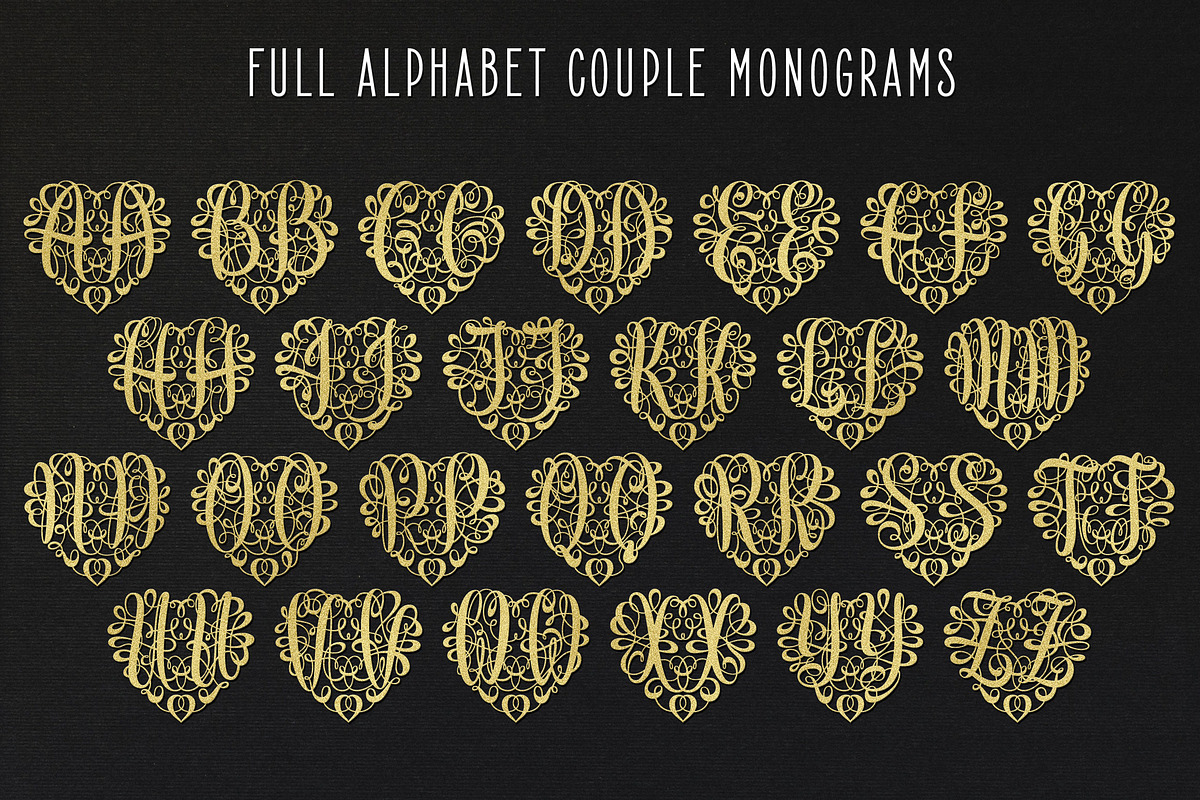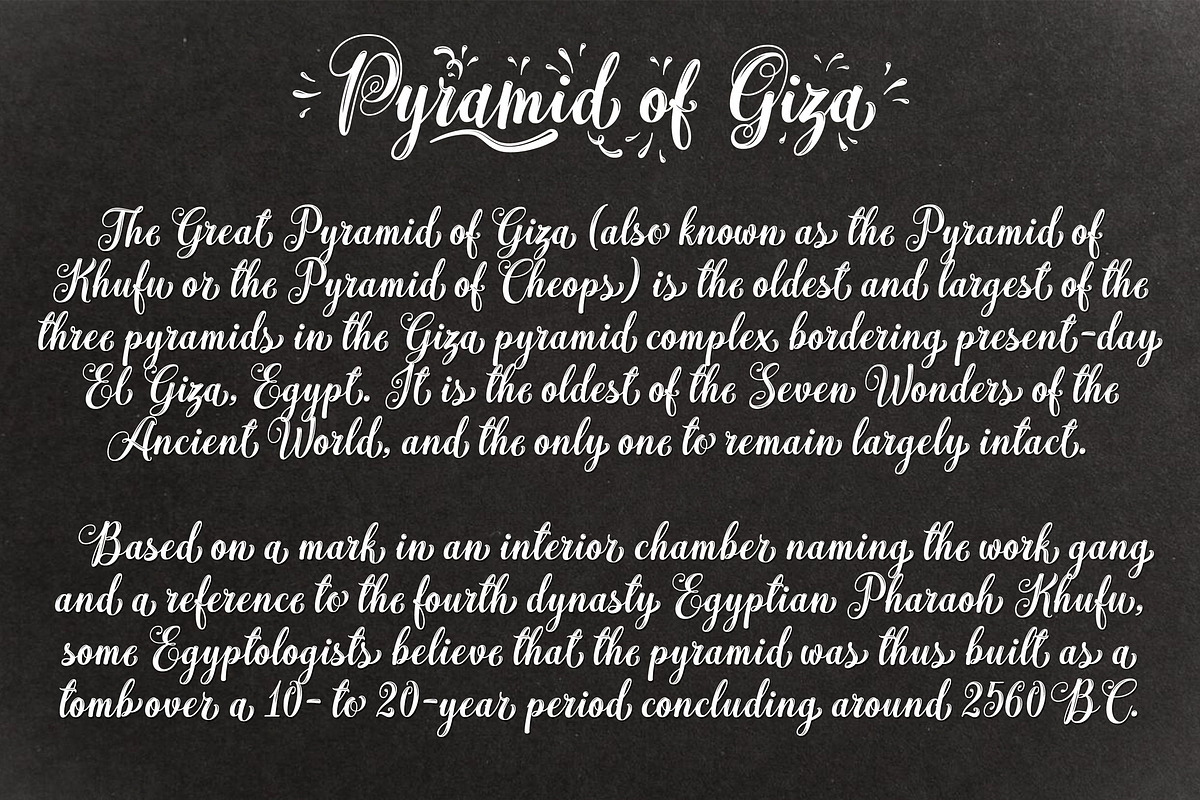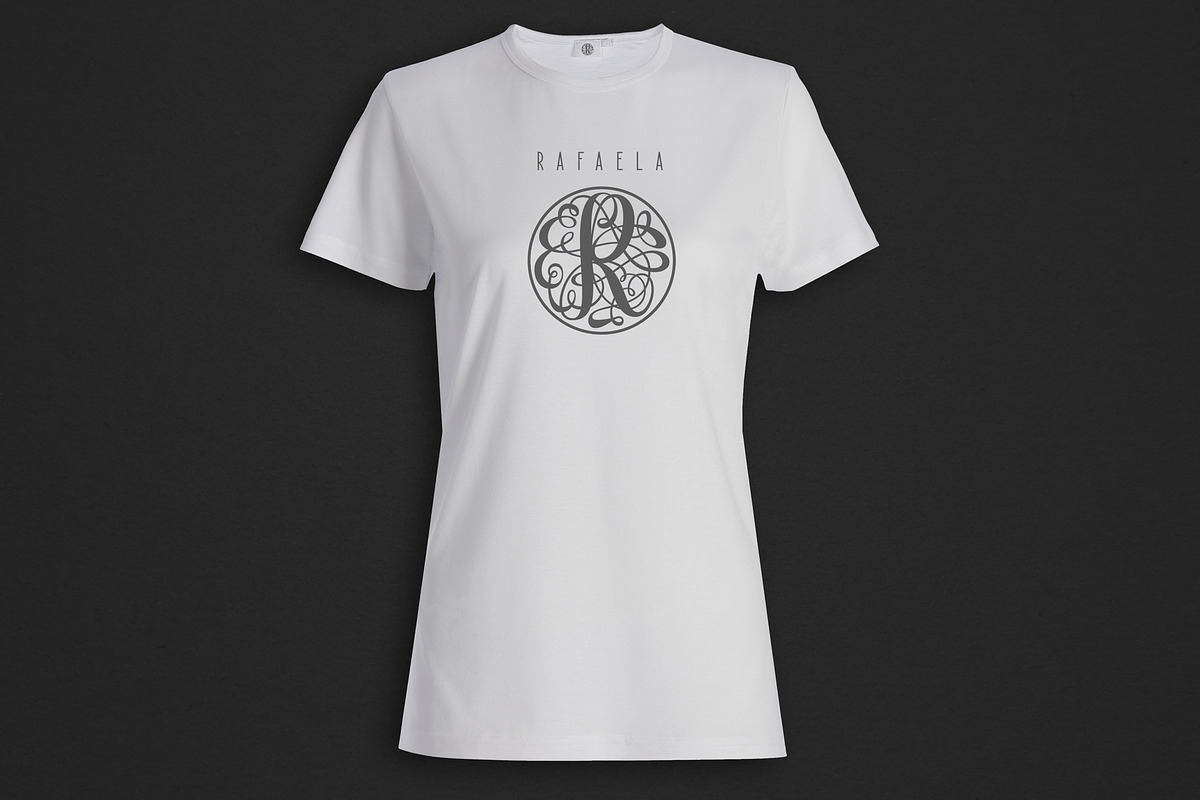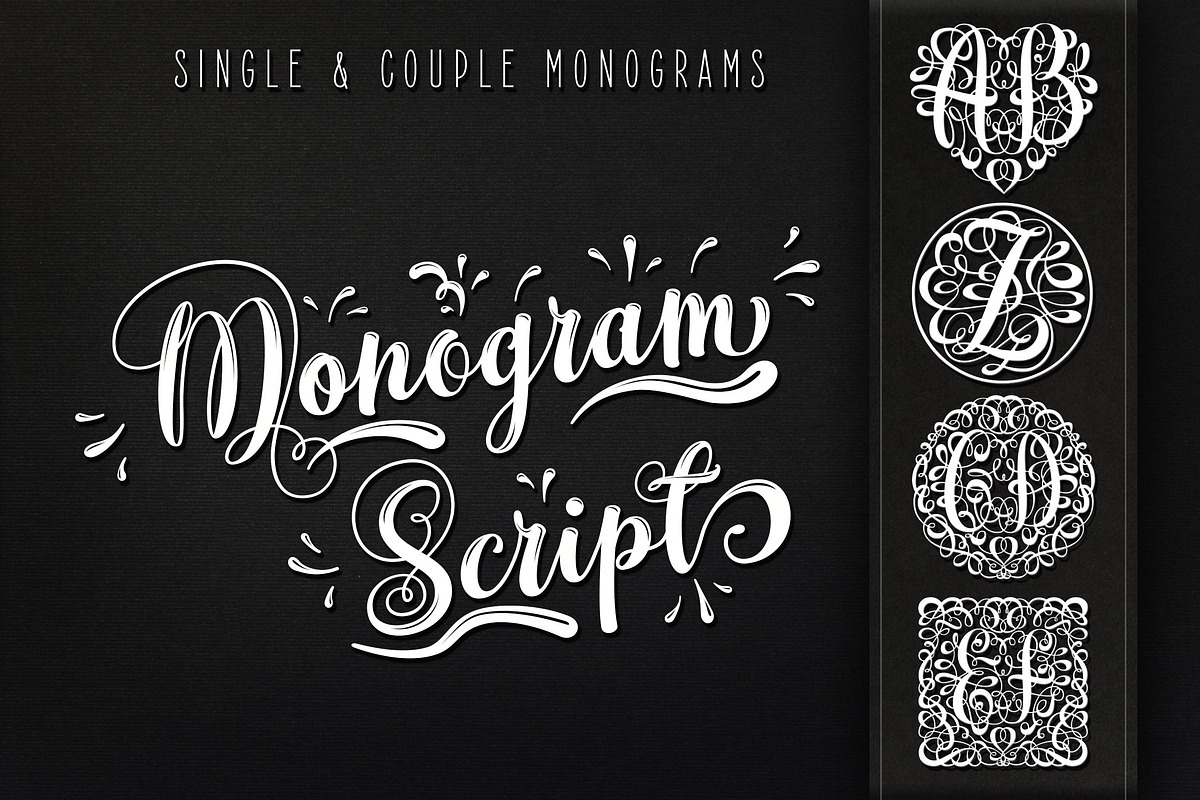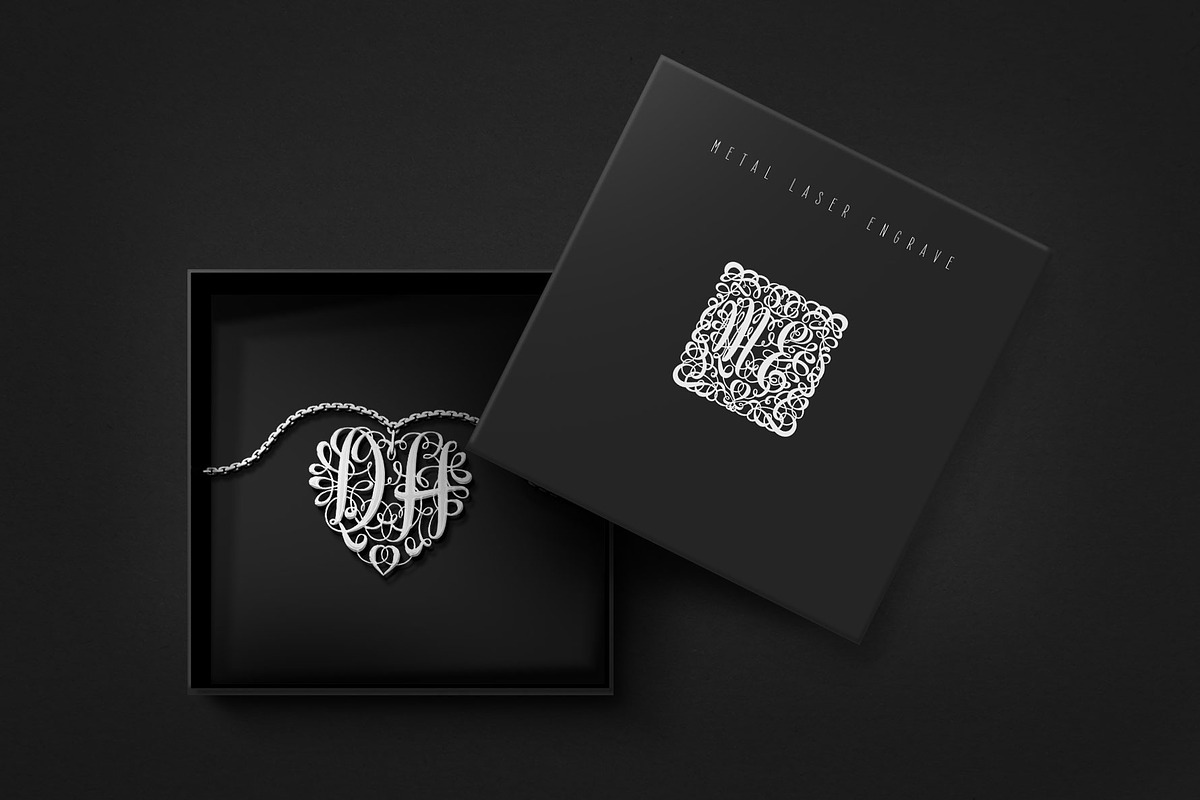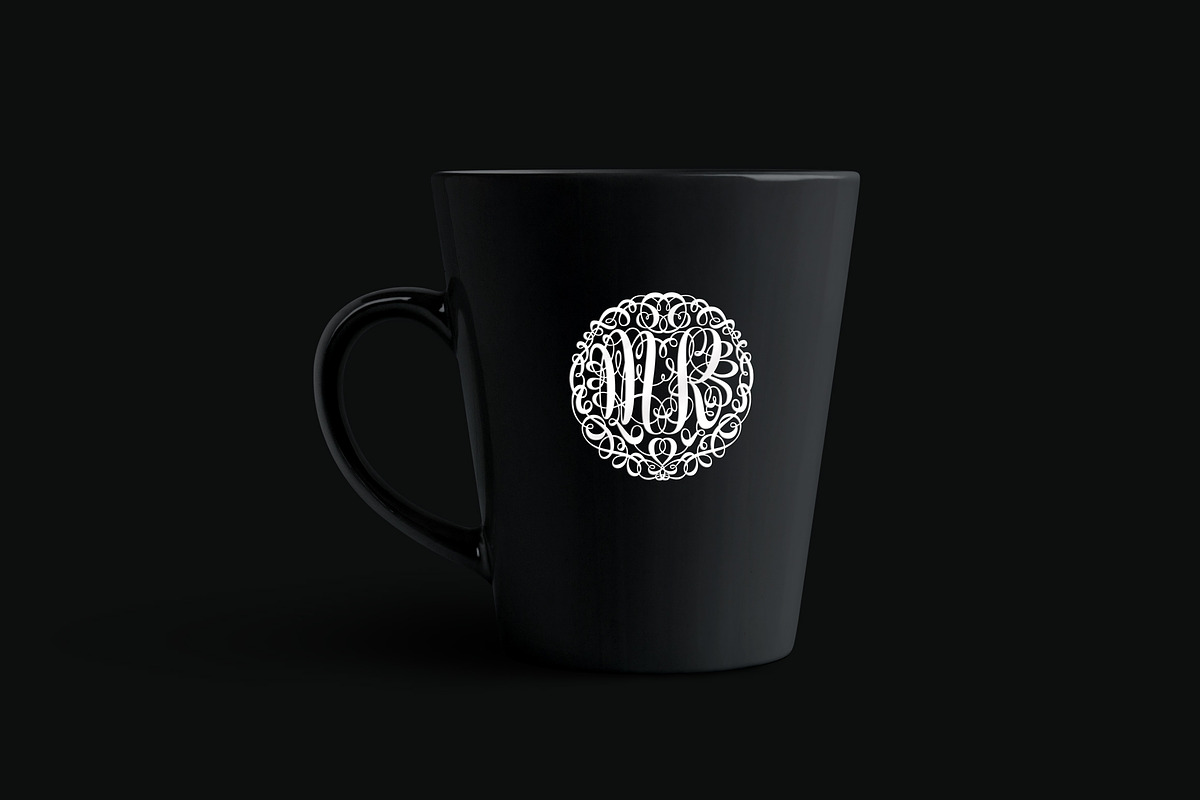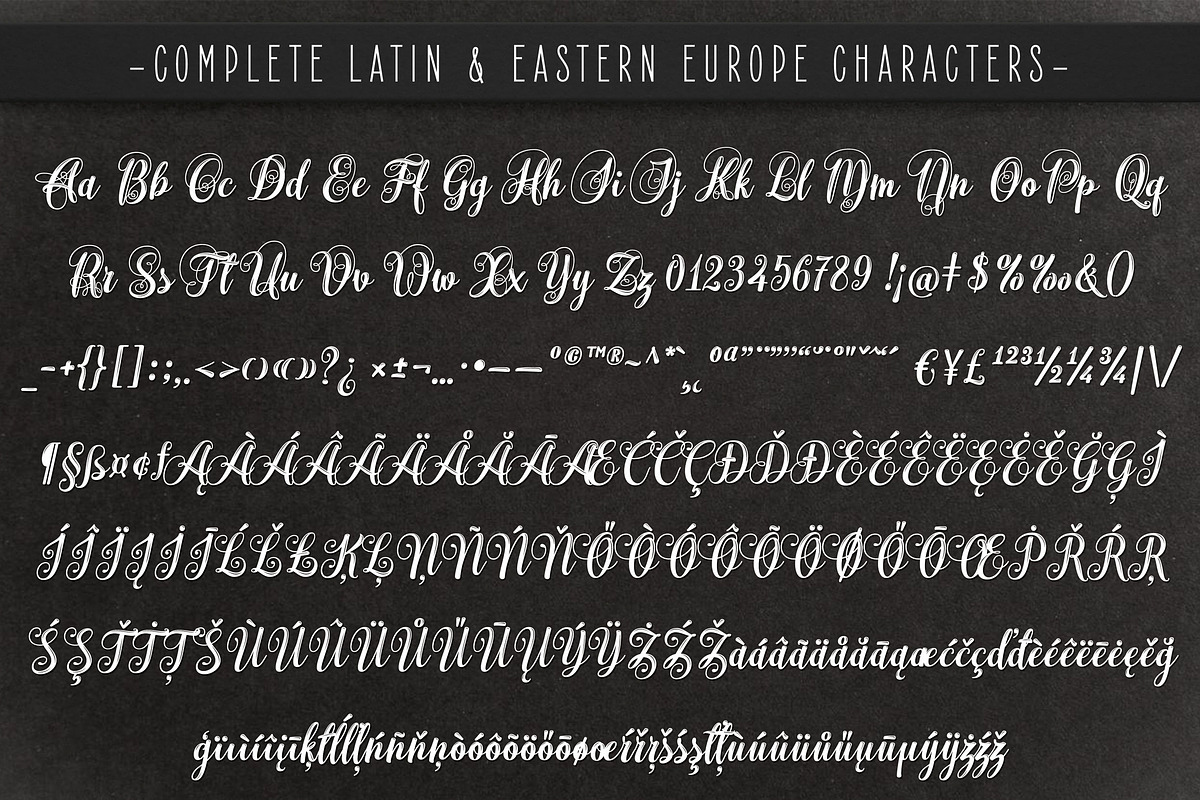
Monogram Script | Full Alphabet
New style of script monograms, couple full alphabet in heart shape, with interlocked shape, so it ready for paper cut and other material cutting and embroidery monogram, . It will send a sweet and romantic sense. Will great for wedding invitation card, valentine card, door ornament, necklace pendant, paper cut for wedding invitation/decoration, T-shirt, mug gift, pillow, logo, etc.
Served in three font files:
1. Monogram Script:
- 720 Glyphs with complete Latin and Eastern Europe characters
- 77 splash ornament and underline (use Glyphs Map in Adobe Illustrator/Photoshop)
- 146 uppercase alternates
- 160 lowercase alternates
- Automate switch to neat style (use Stylistic Alternates feature)
2. Monogram Script Heart:
- Full alphabet for left side and right side (type aA - zZ)
- Heart, circle, and square border (shortcut is numeral key(0-9))
- Unmerged font files (easy to edit)
3. Monogram Script Single:
- Full alphabet single monograms
- Circle border (use numeral key)
- Unmerged font file (easy to edit)